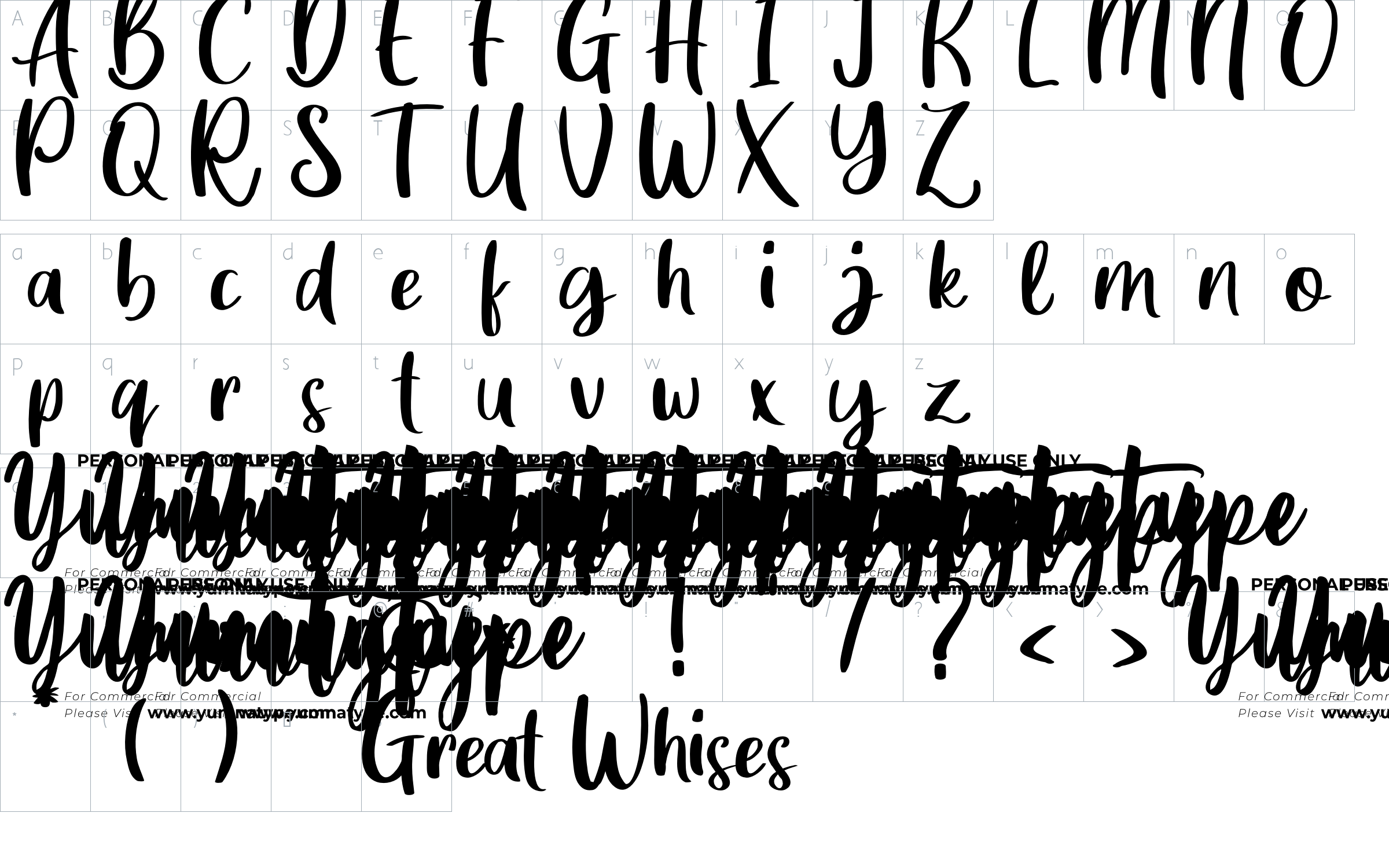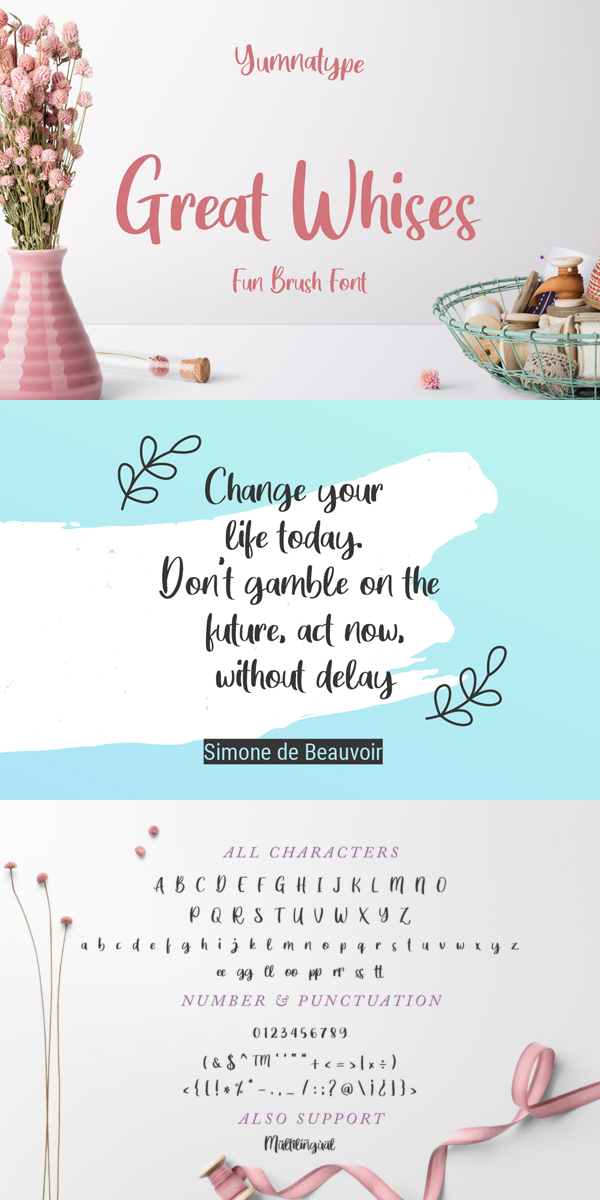
Great Wishes Font
About Great Wishes
Introducing Great Wishes Font. Grear Wishes is a beautiful brush font. Made with a natural brush. The texture from the brush font will make your design more beautiful and powerful. This font is suitable for any design like branding, quotes, t-shirt printing and etc.